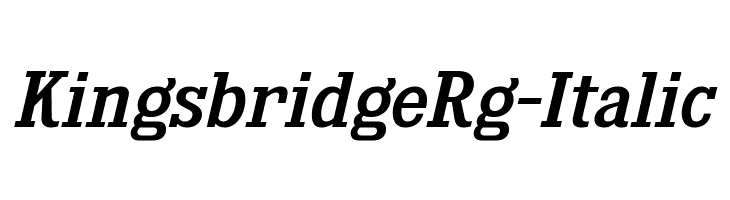
Elegant serif font with an italic slant and moderate contrast.
A modern serif typeface with bold strokes and slightly condensed letterforms.
A bold, italic serif font with strong strokes and pronounced serifs.
A bold, slab serif font with strong, authoritative strokes and pronounced serifs.
An elegant serif font with an italic slant, offering a classic and sophisticated look.
A classic serif font with pronounced serifs and a formal, authoritative look.
An elegant italic serif font with medium contrast and classic appeal.
A classic serif font with modern elegance and balanced proportions.
An elegant serif font with an italic slant, featuring moderate contrast and a classic style.
A modern serif font with clean lines and elegant curves.